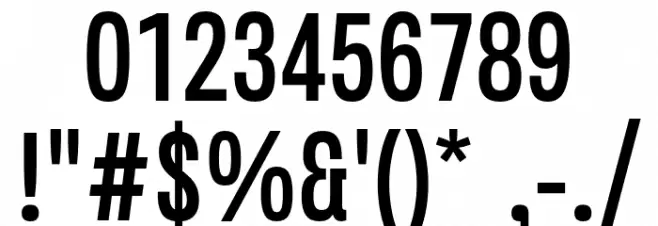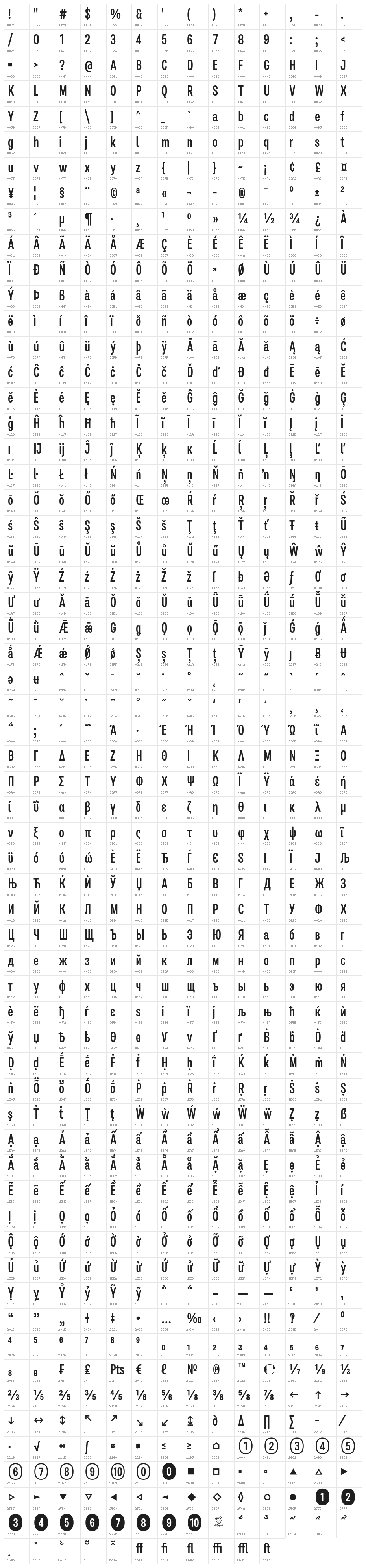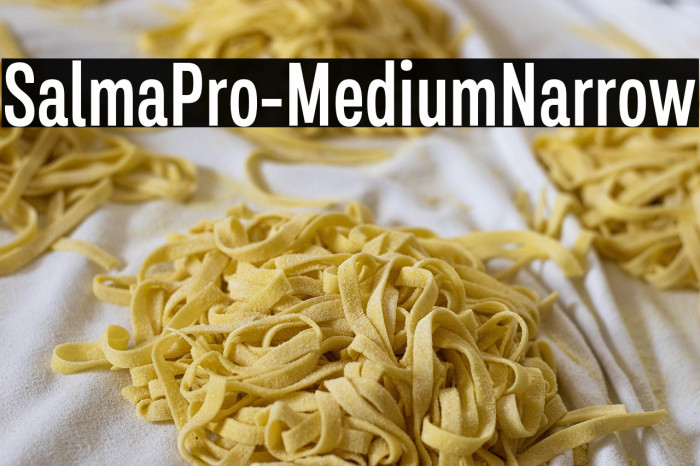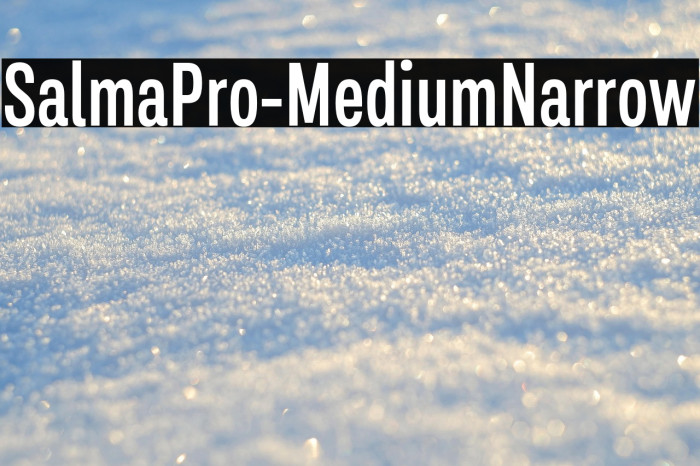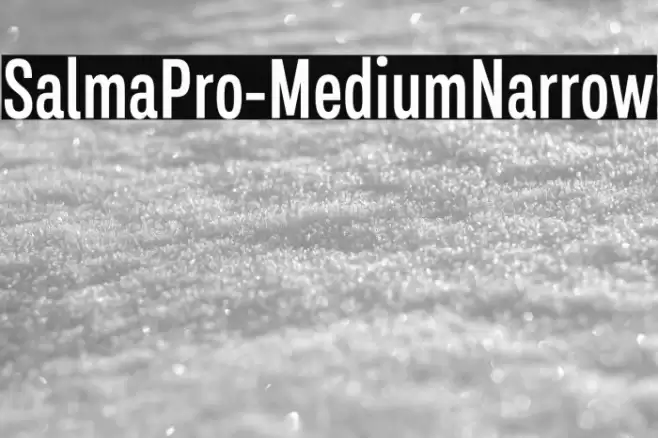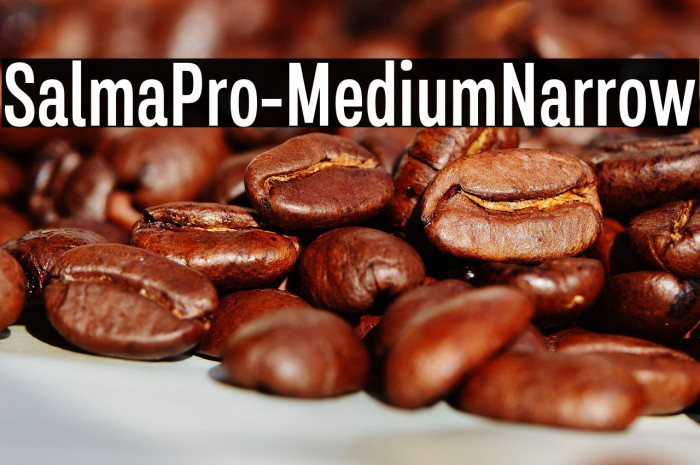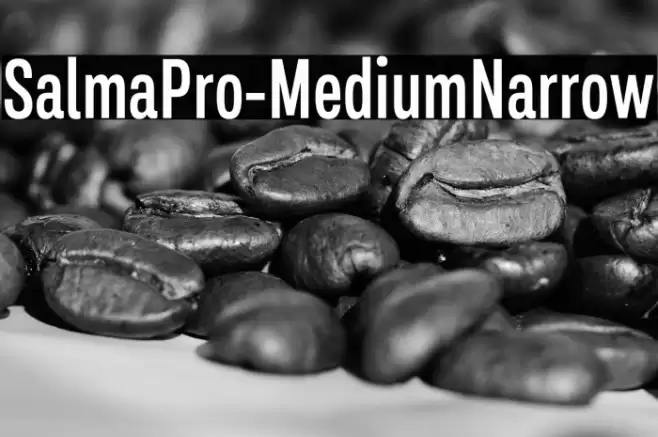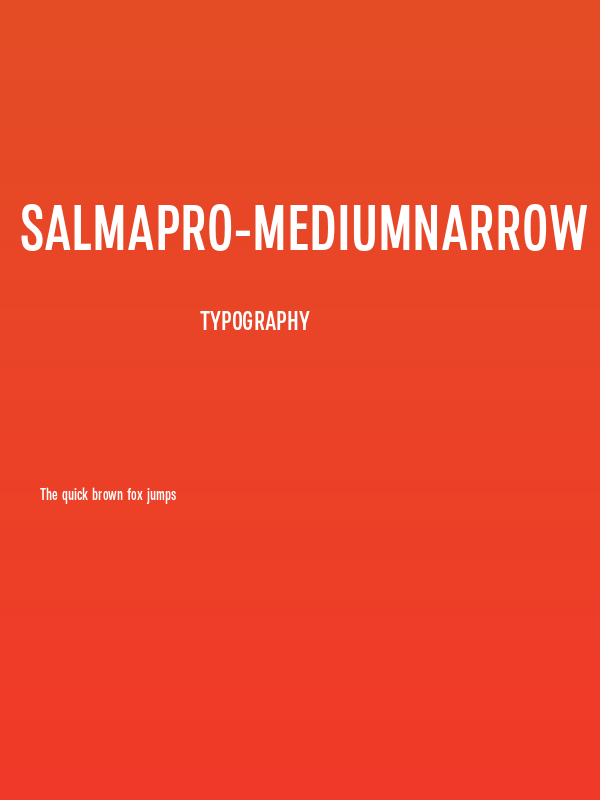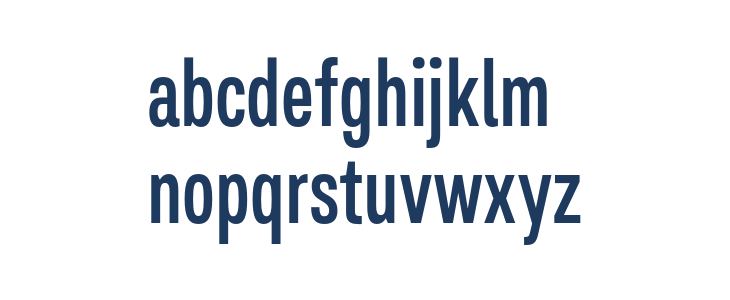
SalmaPro-MediumNarrow Font
SalmaPro-MediumNarrow Description
This typeface exhibits a modern and clean design with a focus on readability and simplicity. The characters are tall and narrow, giving a sleek and professional appearance. The uppercase and lowercase letters maintain a consistent style, with uniform stroke widths that contribute to a balanced look. The numerals are clear and straightforward, ensuring easy legibility. Special characters are well-integrated, matching the overall aesthetic of the font. This font is suitable for a variety of applications, offering versatility while maintaining a distinctive presence.
| Proposed Projects | Ideal for corporate branding, editorial design, advertising, and digital interfaces. |